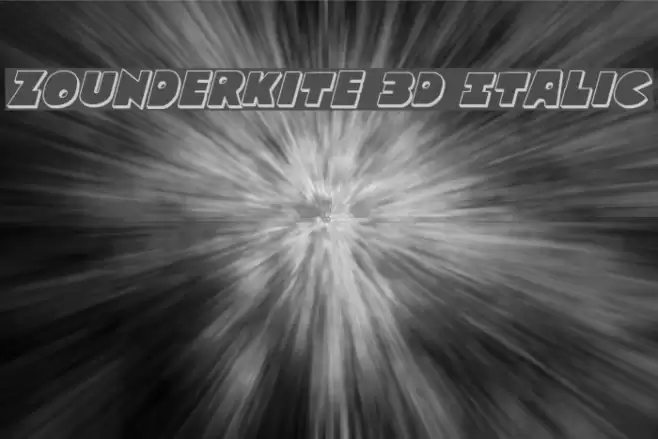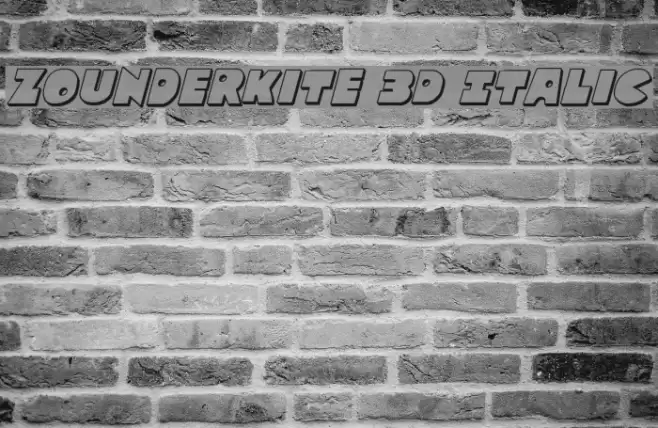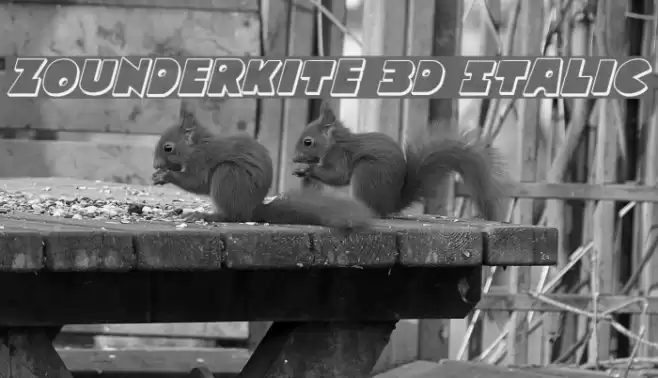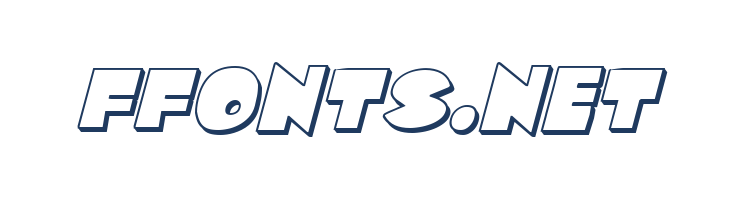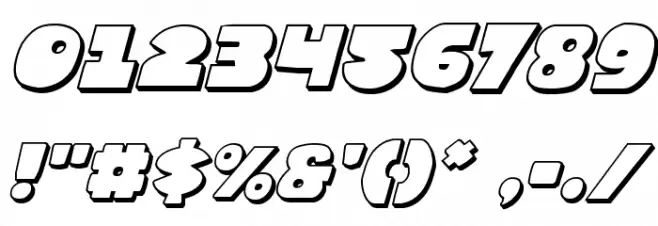
Zounderkite 3D Italic Font
Zounderkite 3D Italic Description
This font features a bold, three-dimensional style with a playful and dynamic appearance. The letters are outlined, creating a shadow effect that gives depth and a sense of movement. The characters are slightly italicized, enhancing the energetic feel. The font is well-suited for attention-grabbing designs due to its thick strokes and bold presence. Its geometric shapes and clean lines make it versatile for various creative projects. The numbers and special characters maintain the same bold and outlined style, ensuring consistency across all elements.
A bold, 3D italic font with outlined characters and a playful, dynamic style from Cartoon fonts.
- Proposed Projects: Ideal for posters, logos, video game graphics, and any project requiring a bold, eye-catching typeface.